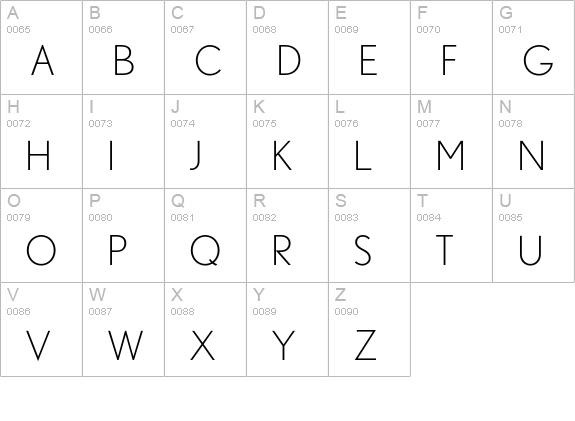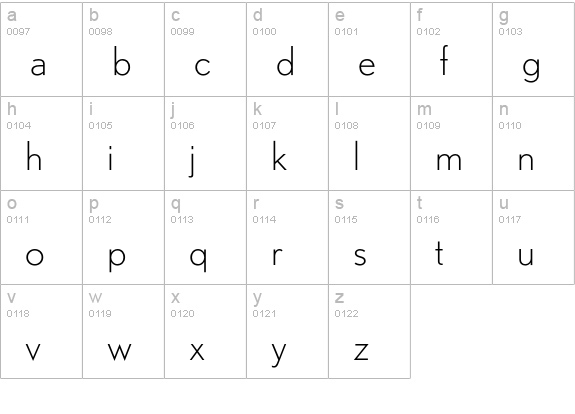
Nobel-Light is a refined, elegant variant in the Nobel typeface family \xE2\x80\x94 well suited to elegant body text, refined sub-headings, and luxury branding.
Nobel-Light font is a modern and elegant typeface that exudes sophistication and style. With its sleek lines and graceful curves, this font is perfect for adding a touch of class to any design project. The light weight of the font gives it a delicate and airy feel, making it ideal for use in headings, quotes, and other display text. What makes Nobel-Light font even more appealing is the fact that it is completely free to download. You can easily access this stunning font at FontsMarket.com and enhance your creations with its timeless beauty. Whether you're working on a website, poster, logo, or any other design project, Nobel-Light font will elevate your work to new heights. Download it today and let your creativity shine with this exceptional typeface.